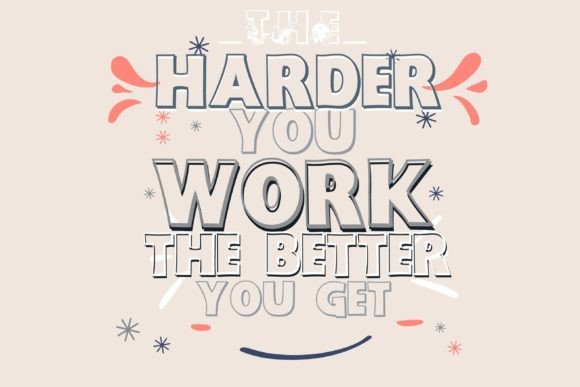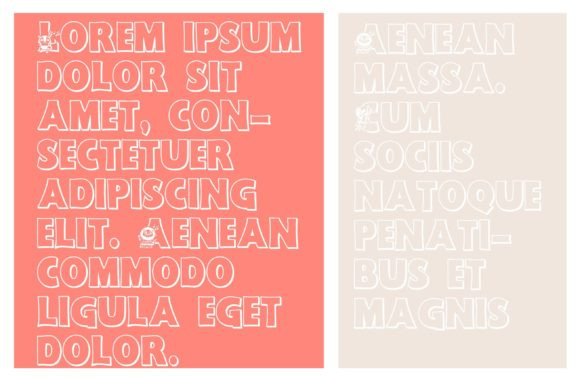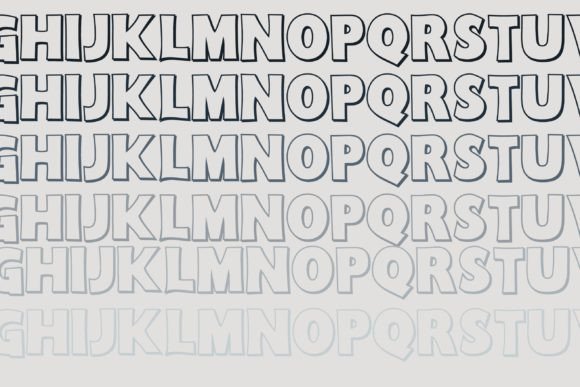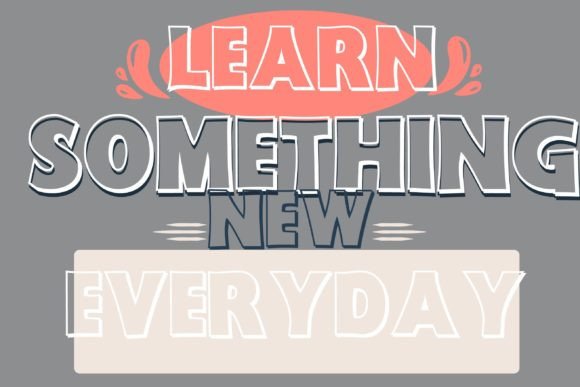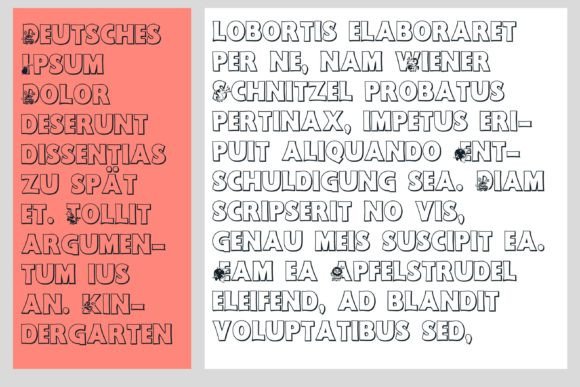
Get Ready to Rock with the Band Bop Font!
Do you remember the feeling of creating something new and exciting as a child? The thrill of combining colors, textures, and typography to bring your imagination to life? For many of us, this is the spark that ignites our passion for design. And what better way to tap into that creativity than with a font that’s as playful as it is authentic?
Enter the Band Bop Font, a cool sans serif display font that’s specifically designed to bring a smile to your face. With its uppercase letters featuring a fun animal band, this font is the perfect choice for any children’s activity or school project. But its value extends far beyond just kids’ projects – for designers, the Band Bop Font offers a unique opportunity to add a touch of whimsy and personality to any design.
Band Bop Font Key Features
- Font Family: Band Bop is a modern sans-serif font with a unique, bouncy feel.
- Unique Characteristics: Band Bop features a distinctive, energetic feel with a subtle bounce effect, making it perfect for headlines and titles.
Band Bop Font Review
Overall, I think the Band Bop Font has some great qualities that make it stand out, but it also has some limitations that might make it less appealing to certain designers. ✨ Let’s dive in and take a closer look!
- The font’s bold, playful vibe is perfect for music-related projects or anything that needs a fun, energetic feel. ✨
- The font is highly customizable, with plenty of options for adjusting size, color, and spacing. ✨
- The Band Bop Font is also highly legible, even at smaller sizes, making it a great choice for body text or captions. ✨
- The font can feel a bit too loud or overpowering in certain contexts, so be careful not to overuse it. ⚠️
- The font’s customizability can also be a double-edged sword – with so many options, it can be easy to get carried away and create a design that’s too busy or cluttered. ⚠️
- The font may not be the best choice for more formal or professional projects, where a more subdued or classic font might be a better fit. ⚠️
I think the Band Bop Font is a solid choice for designers who are looking for a fun, energetic font that’s perfect for music-related projects or anything that needs a playful feel. While it may have some limitations, I think the font’s strengths make it a great addition to any designer’s toolkit. Just be sure to use it wisely and balance it out with other fonts and design elements to avoid overwhelming the viewer!
Getting the Most Out of the Band Bop Font
For the best results, use the Band Bop Font in conjunction with bold or italic text to create a striking visual effect. You can also experiment with different font sizes and colors to create a unique look.
The Band Bop Font is ideal for creating eye-catching posters, flyers, and social media graphics. It’s also a great choice for adding a touch of personality to your resume, business cards, or other professional documents.